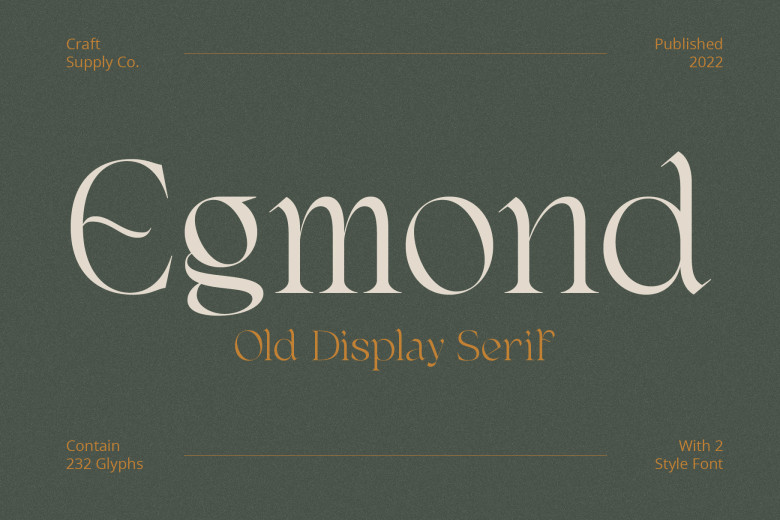
Egmond Font
Egmond is a stylish and elegant display serif font. No matter the topic, this font will be an incredible asset to your fonts’ library, as it has the potential to elevate any creation. Egmond work perfectly for fashion, e-commerce brands, trend blogs, wedding boutiques or any business that wants to appear upscale and chic.
Egmond Serif Font